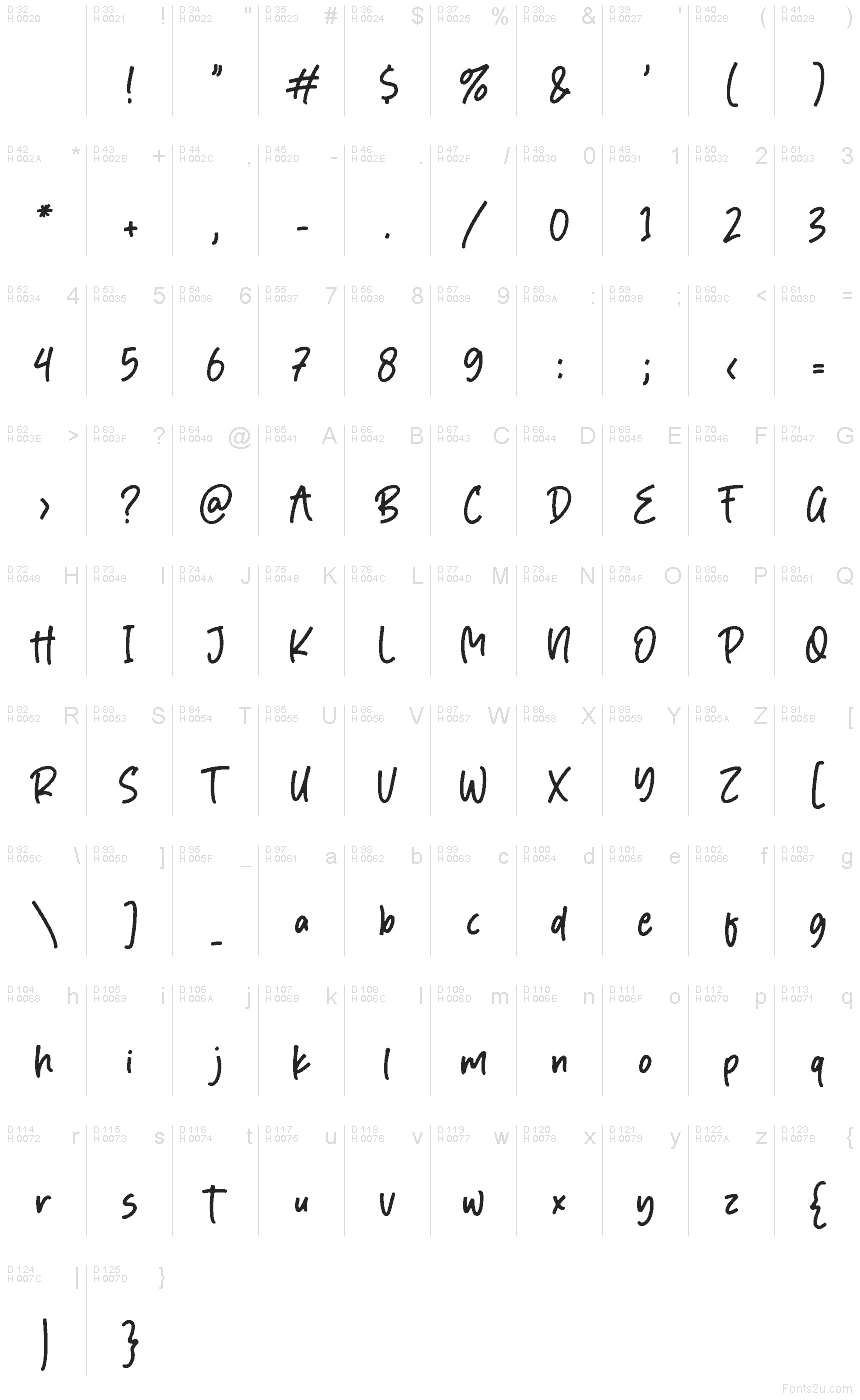
Blackdog
Blackdog font by Aestherica Studio captures the essence of an energetic handwritten style with a modern twist. Its casual and expressive design allows for excellent visual flow and contemporary appeal, making it a captivating addition to any project. This free-form script font combines creativity with familiarity, providing an approachable yet stylish aesthetic.
Perfect for branding, product packaging, marketing copy, social media designs, magazine layouts, headlines, logotypes, store window designs, book covers, inspirational quotes banners and more – Blackdog’s versatility can help elevate your creative work effortlessly. Enjoy this free handwritten font designed to inspire.